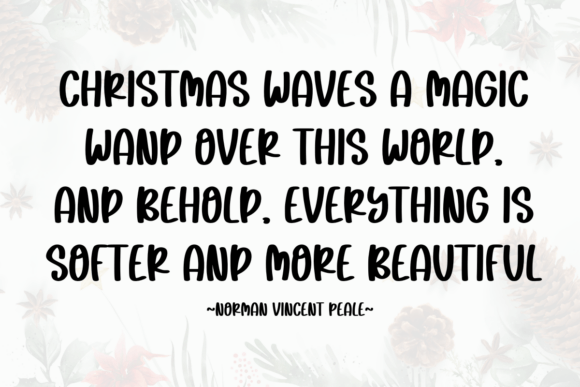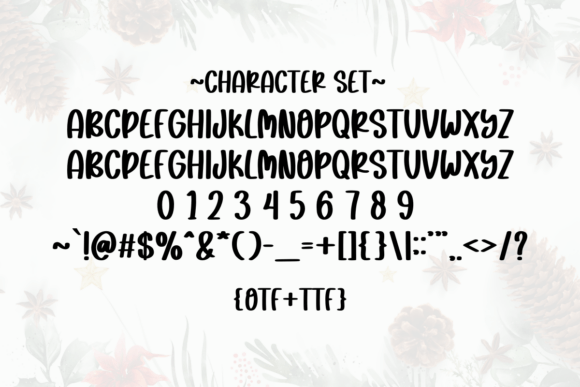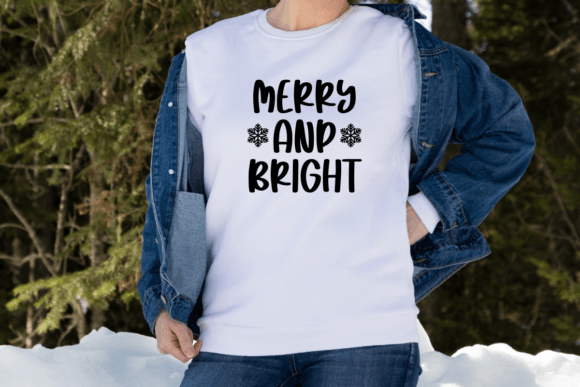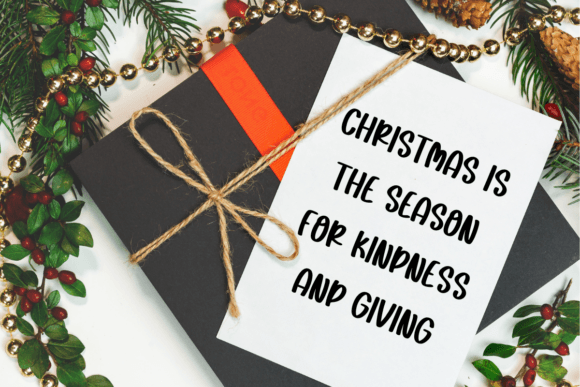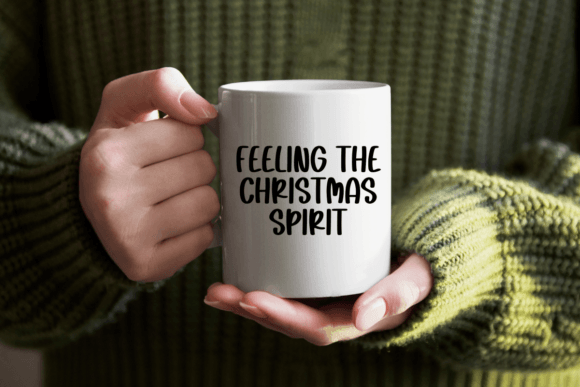
The Perfect Font for Your Holiday Design
As the holiday season approaches, designers are scrambling to create festive and fun designs that capture the spirit of the season. For many of us, the moment of inspiration strikes when we’re sipping hot cocoa by the fireplace, surrounded by twinkling lights and the sound of carolers in the distance. It’s in these cozy moments that we’re reminded of the importance of incorporating cheer and whimsy into our designs.
That’s where the Cheerful Carols Font comes in – a fun and bold sans serif font that’s perfect for designs that are retro, fun, cute, and bubbly. This versatile font is a valuable addition to any designer’s toolkit, offering a unique and playful touch to holiday designs, children’s products, and even advertising campaigns.
Cheerful Carols Font Key Features
- Unique Characteristics: Whimsical, hand-drawn design with a touch of nostalgia, perfect for holiday-themed projects.
Review of Cheerful Carols Font
I recently had the chance to work with the Cheerful Carols Font, and I must say it’s a delightful addition to any holiday design project. ✨ The font’s cheerful and playful vibe is perfect for creating festive and fun designs.
The Cheerful Carols Font features a range of characters, including uppercase and lowercase letters, numbers, and special characters. ✨ The font’s consistency and legibility are excellent, making it easy to read and use in various contexts.
- ✨ Cheerful and playful design aesthetic
- ✨ Excellent consistency and legibility
- ✨ Wide range of characters, including uppercase and lowercase letters, numbers, and special characters
- ⚠️ Limited to a specific holiday or festive theme
- ⚠️ May not be suitable for corporate or formal designs
- ⚠️ Some users may find the font too playful or childish
Overall, I think the Cheerful Carols Font is a great choice for designers looking to add a festive touch to their holiday designs. While it may not be suitable for every project, it’s a fun and creative option that’s sure to bring a smile to your audience’s faces.
Tips for Getting the Most Out of Cheerful Carols Font
For the best results, use Cheerful Carols Font in conjunction with festive colors and graphics to create a cohesive and eye-catching design. Experiment with different font sizes and styles to add visual interest and emphasis.
Use Cheerful Carols Font for:
- Christmas card designs and invitations
- Holiday-themed social media graphics
- Party and event invitations